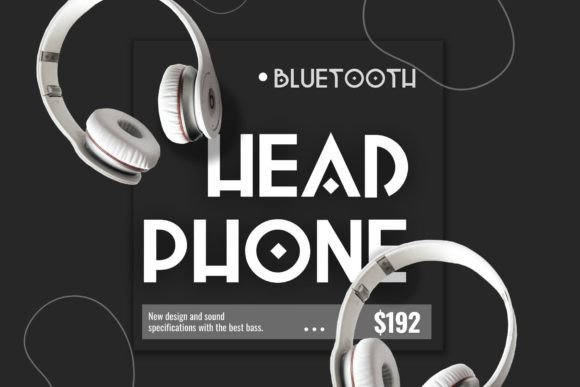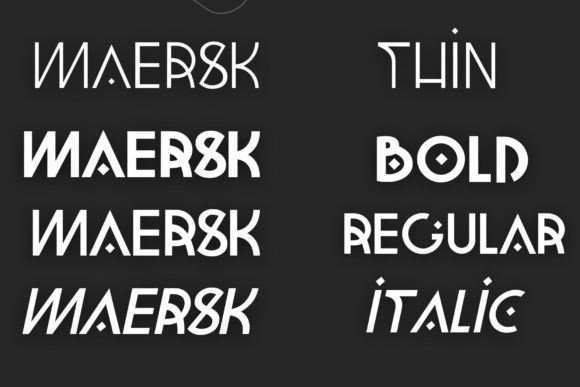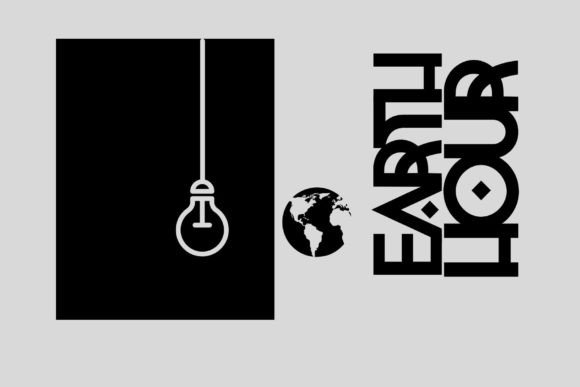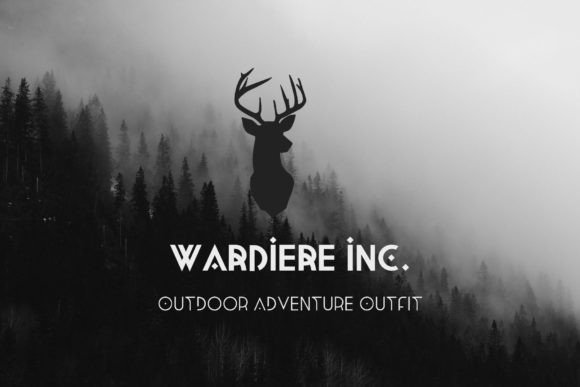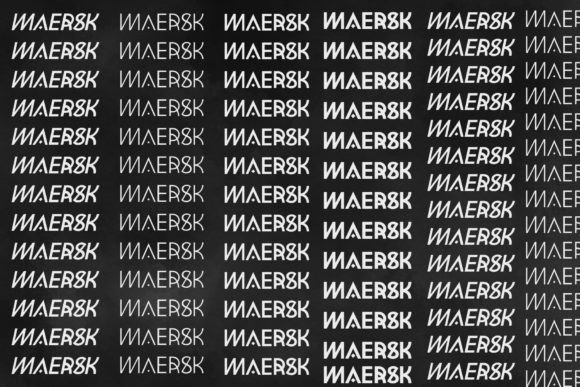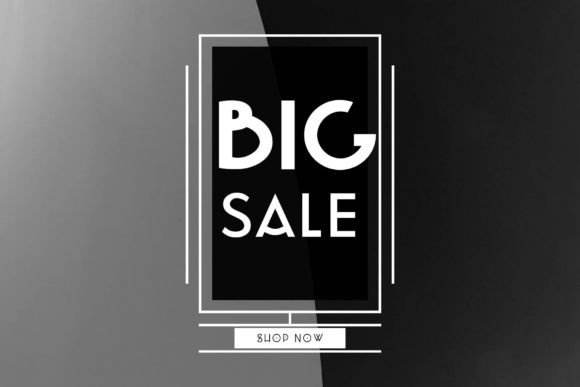
Introduction to Maersk Font
Have you ever stared at a blank canvas, searching for the perfect font to bring your design to life? That moment of frustration is a familiar feeling for many designers. But what if I told you there’s a font that can instantly elevate your creative project and make it stand out from the crowd? Enter Maersk Font, a game-changing geometric display typeface that’s about to become your new best friend.
Maersk Font is more than just a font – it’s a design resource that offers four distinct styles, each with a variety of alternate characters. This means you can experiment with different looks and find the perfect fit for your project. With its bold and strong aesthetic, Maersk Font is ideal for logos, posters, album covers, and headlines. And the best part? You can download it for free, giving you the freedom to explore new ideas without breaking the bank.
Whether you’re a seasoned designer or just starting out, Maersk Font is a valuable addition to your design arsenal. Its high-quality design and transparent background make it a versatile tool that can be used across various projects. So why wait? Dive into the world of Maersk Font and discover a new level of creativity and inspiration.
Key Features of Maersk Font
- High-quality design: Maersk Font is a premium design resource ideal for creative projects requiring a sophisticated look.
- Transparent background: The font features a transparent background, allowing for seamless integration with various design elements.
- Unique characteristics: Maersk Font features a unique blend of modern and classic design elements, making it an excellent choice for designers seeking a distinctive look.
Honest Review: Maersk Font
I recently came across the Maersk Font, and I was impressed by its high quality and versatility. As a designer, I’m always on the lookout for free downloads that can elevate my creative projects. The Maersk Font fits the bill.
- ✨ One of the standout features of the Maersk Font is its transparent background, which makes it easy to customize and pair with other design elements.
- ✨ The font also comes in a range of weights and styles, making it suitable for various design applications, from headings to body text.
While the Maersk Font is an excellent addition to any design resource, there are a few limitations to be aware of:
- ⚠️ The font may not be suitable for projects that require a lot of text manipulation, as it can become distorted at larger sizes.
Overall, I’m impressed with the Maersk Font and would recommend it to fellow designers. Its high quality, flexibility, and transparent licensing terms make it a valuable asset for any creative project.
Tips for Getting the Most Out of Maersk Font
For the best results, use the Maersk Font in conjunction with other high-quality design elements. Experiment with different font sizes, colors, and styles to create visually appealing designs. You can also use the Maersk Font as a starting point and customize it to fit your unique design needs.
The Maersk Font is perfect for a variety of creative projects, including business cards, brochures, and presentations. It’s also great for creating high-quality digital products, such as ebooks and web graphics. With its transparent background, the Maersk Font is a versatile design resource that can be used in a wide range of applications.